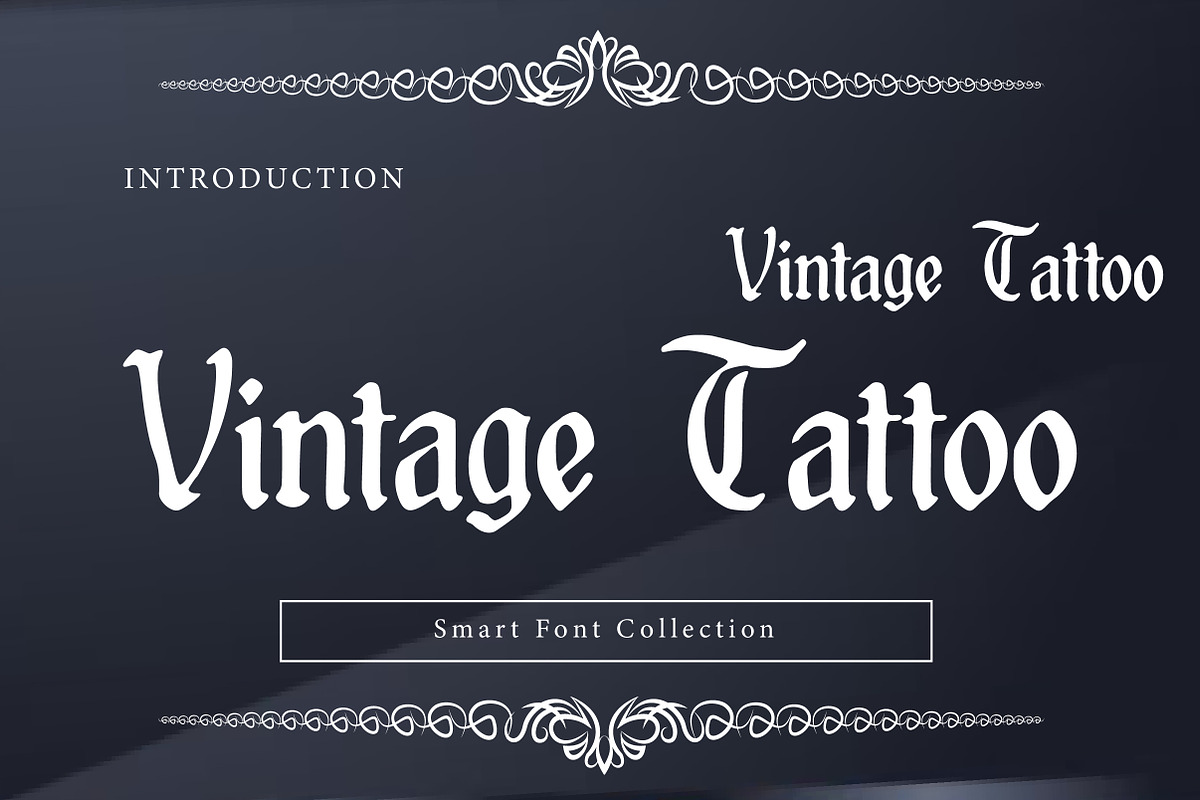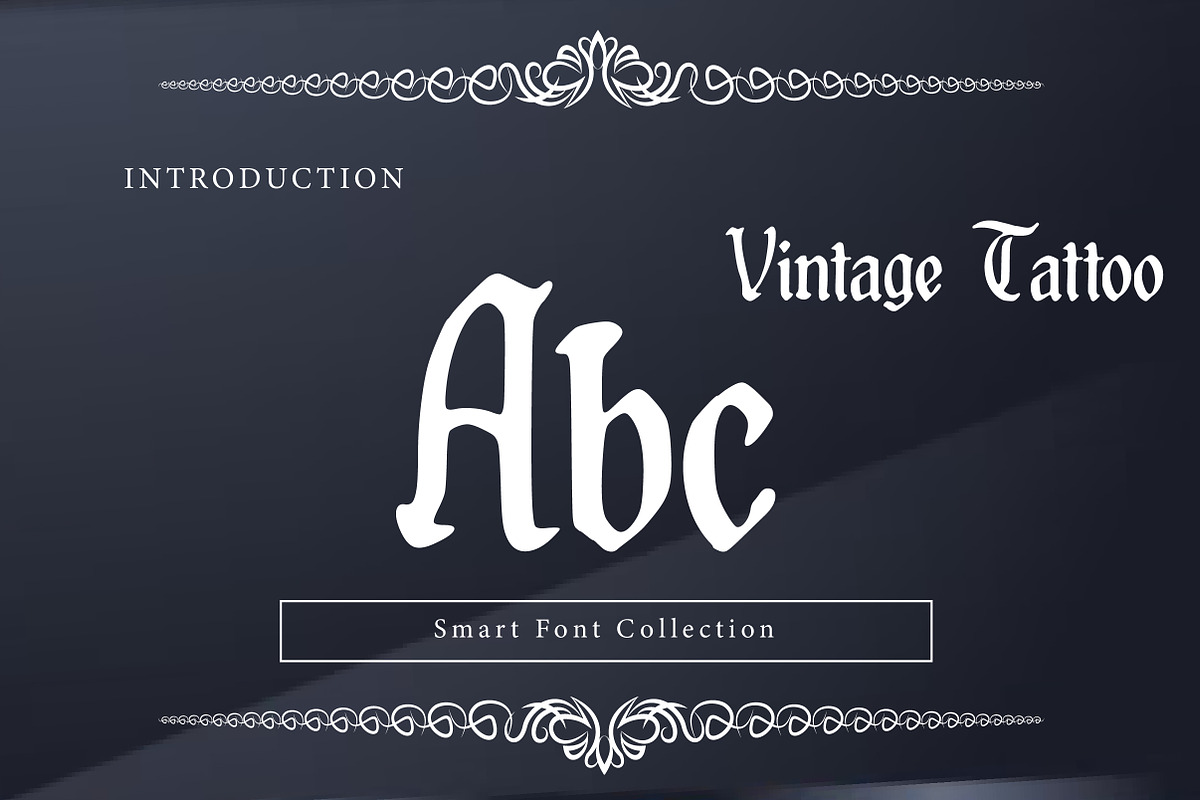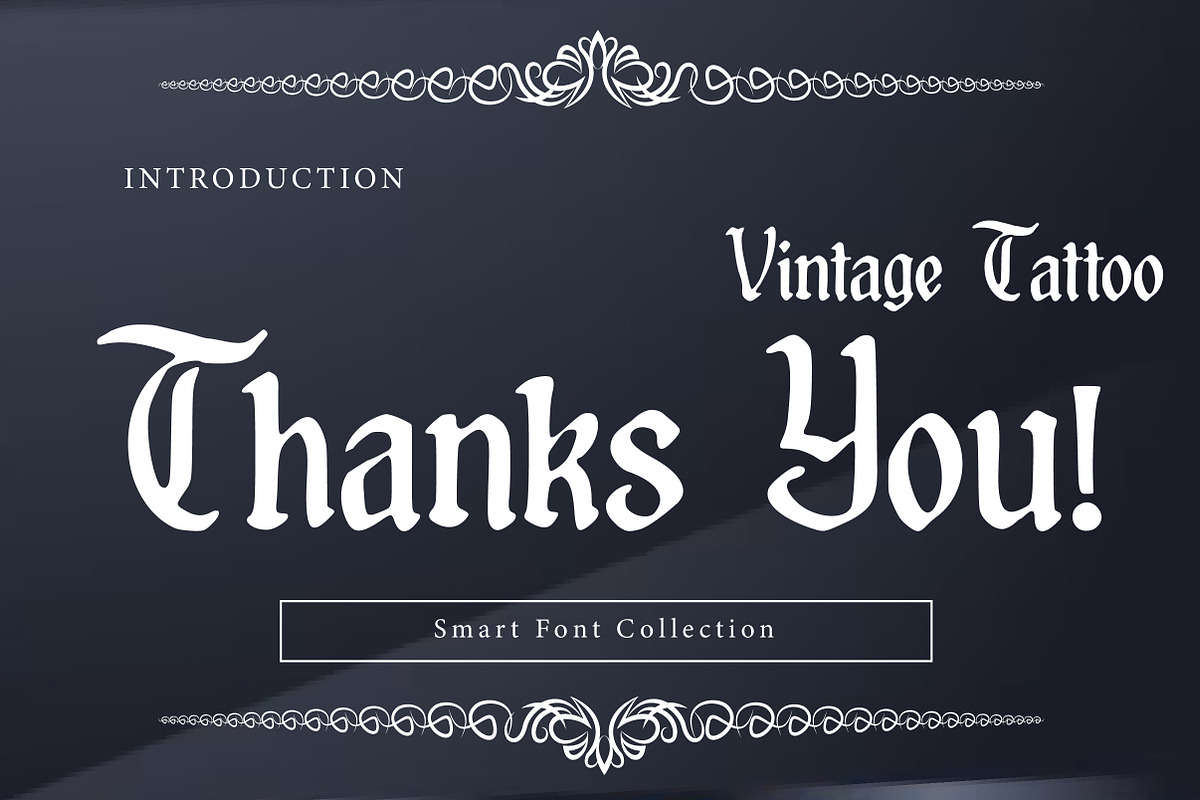
Vintage tattoo
Vintage Tattoo is a bold old-school tattoo-inspired display font with classic gothic character and timeless ink attitude. Featuring strong strokes, slightly sharp serifs, and traditional lettering style, this typeface is perfect for tattoo designs, barbershop branding, biker themes, band logos, posters, labels, packaging, and streetwear graphics. Its authentic retro feel brings heritage craftsmanship into modern creative projects. Vintage Tattoo delivers powerful headlines with a true traditional tattoo vibe.